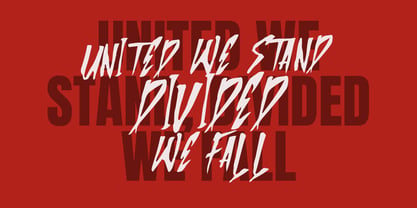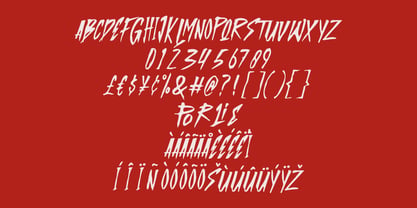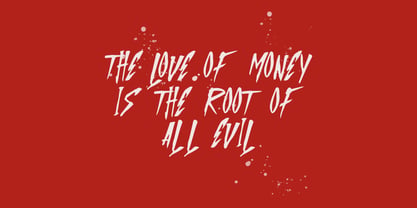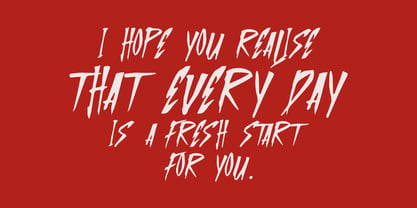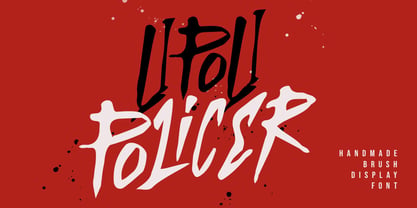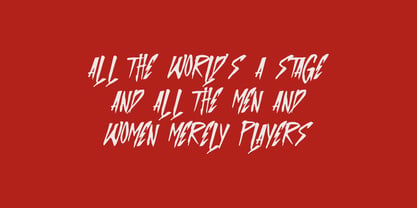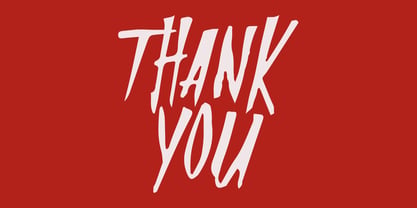
MC Lipoli Policer
by Maulana Creative
The MC Lipoli Policer Font Family was designed by Gilang Maulana and published by Maulana Creative. MC Lipoli Policer contains 1 styles. More about this family
Lipoli Policer is a handmade brush display handwritten font. With bold stroke, fun character with a bit of ligatures and alternates. To give you an extra creative work. Lipoli Policer font support multilingual more than 100+ language. This font is good for logo design, Social media, Movie Titles, Books Titles, a short text even a long text letter and good for your secondary text font with sans or serif. Make a stunning work with Lipoli Policer font.
Designers: Gilang Maulana
Foundry: Maulana Creative